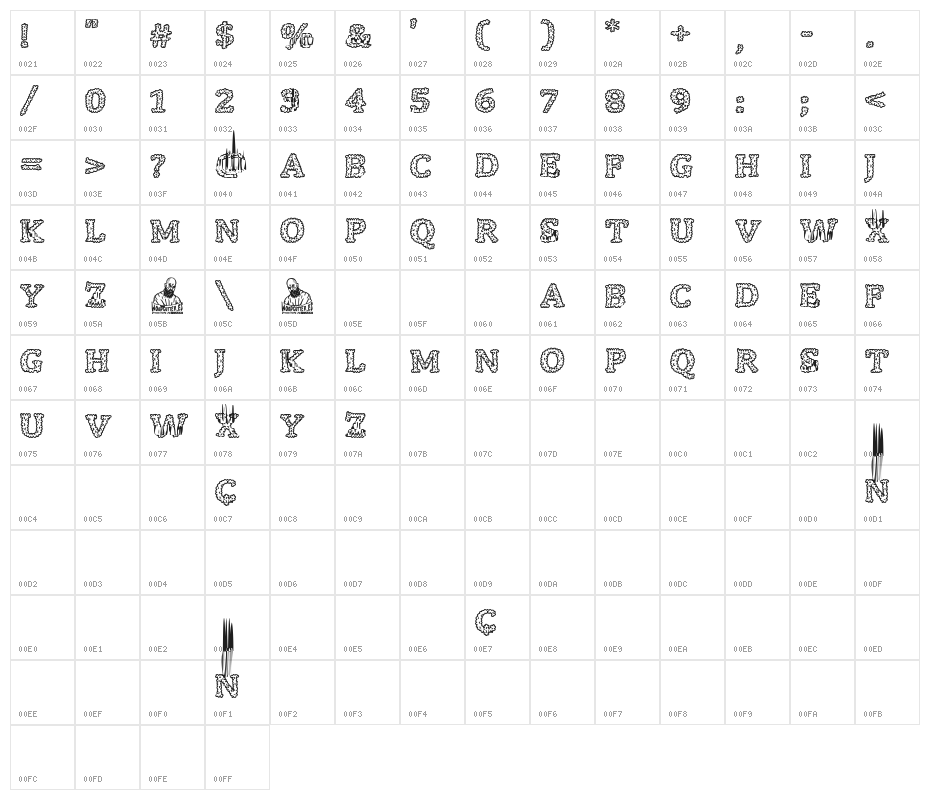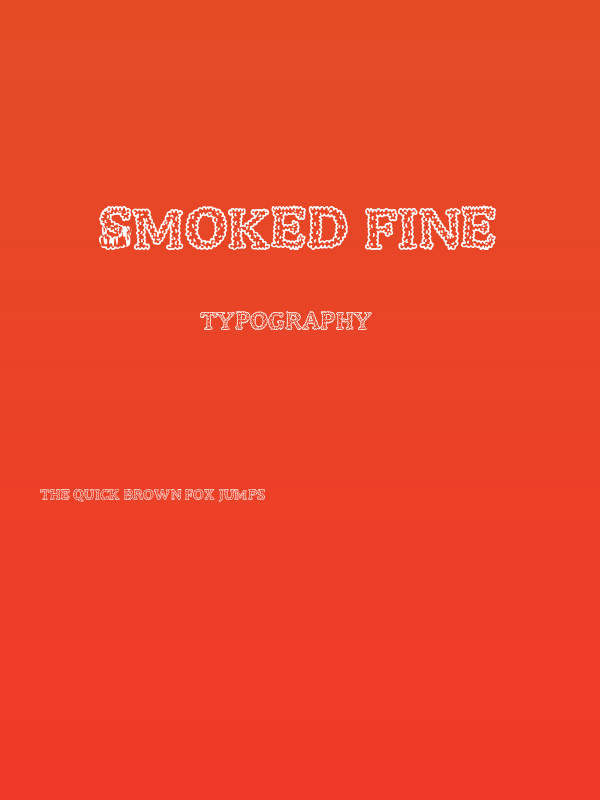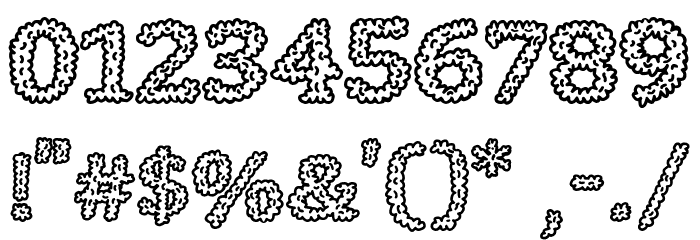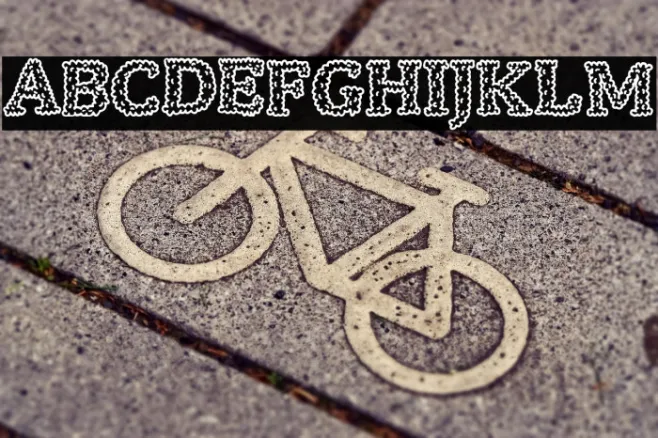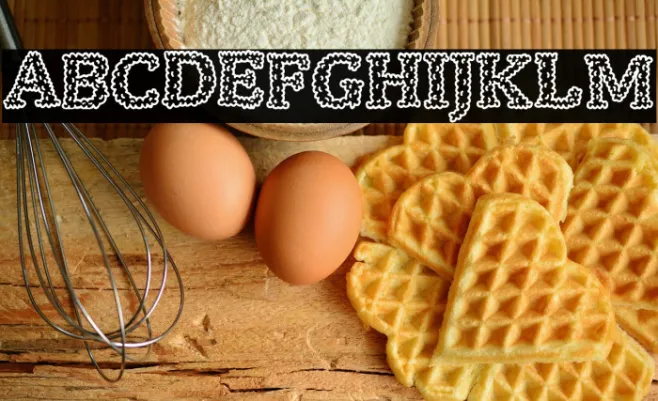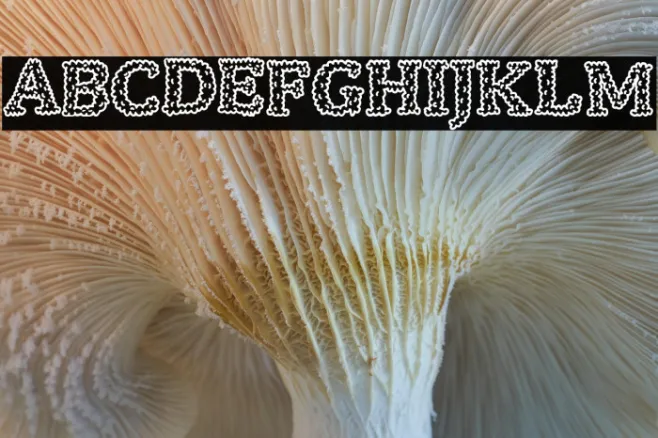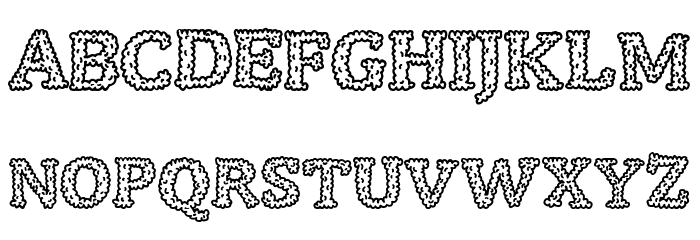
Smoked Fine Font
Smoked Fine Description
This font features a unique and playful design with a textured, cloud-like appearance. Each character is outlined with a bold, irregular pattern that gives it a dynamic and whimsical feel. The letters are well-defined yet maintain a casual, hand-drawn quality, making them stand out with a distinctive flair. The numbers and special characters follow the same stylistic approach, ensuring consistency across all glyphs. This font is ideal for projects that require a fun and engaging visual element, adding a touch of creativity and imagination to any design.
| Proposed Projects | Ideal for children's books, playful branding, creative posters, and whimsical invitations. |